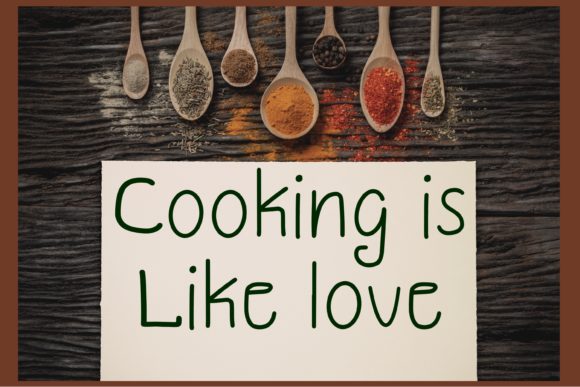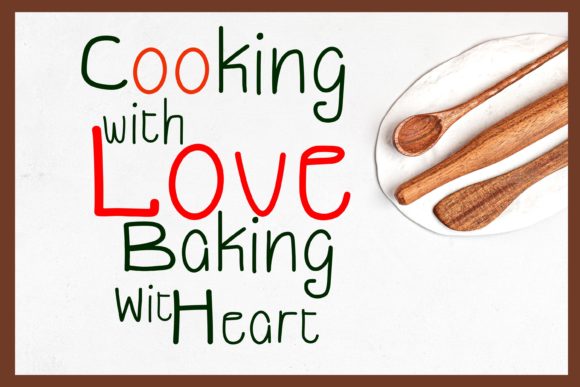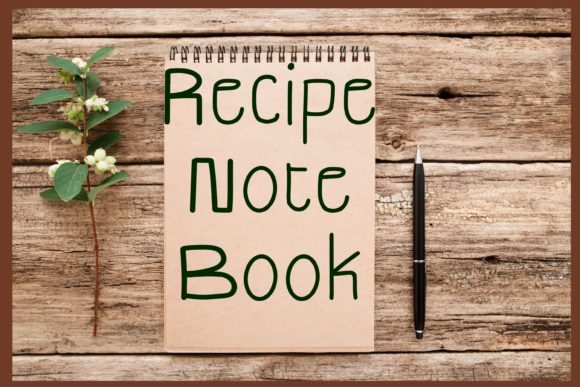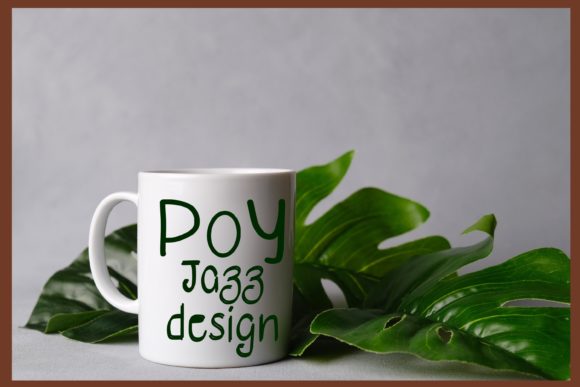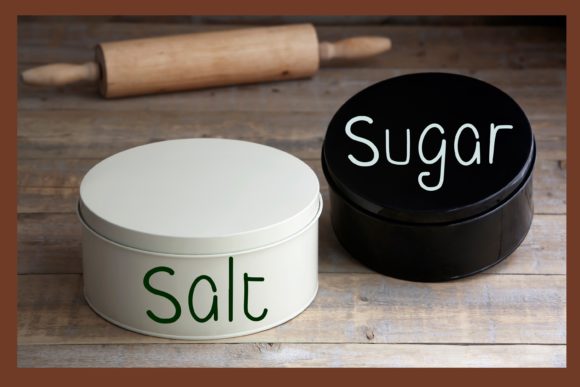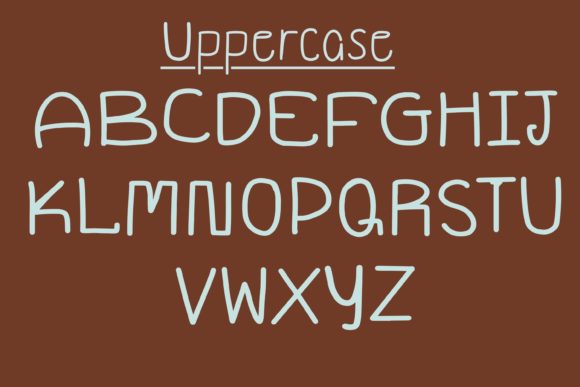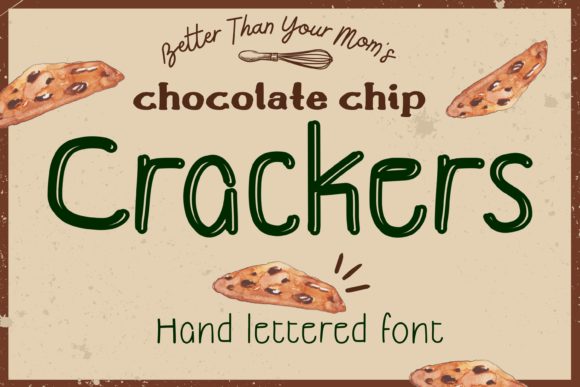
Cracker Font: Adding a Personal Touch to Your Designs
In the world of typography, fonts play a crucial role in conveying the tone and personality of a design. For designers and crafters looking to add a personal and realistic feel to their creations, the Cracker Font is an excellent choice. This simple, quirky, and informal handwritten font is perfect for a wide range of design projects, from digital media to print materials.
What is Cracker Font?
Cracker Font is a unique and charming typeface that boasts an authentic look and feel. Its handwritten nature gives it a personal touch that is hard to replicate with more formal fonts. The Cracker Font is characterized by its irregularities and quirks, which add to its charm and make it stand out from more traditional fonts.
Key Features of Cracker Font
- Simple and Quirky: The Cracker Font has a straightforward yet quirky design that makes it perfect for designs that require a personal touch.
- Informal and Handwritten: Its handwritten nature gives the font a relaxed and informal feel that is ideal for casual designs.
- Authentic Look and Feel: The font’s authentic look and feel make it perfect for designers looking to add a realistic touch to their designs.
- Versatile: The Cracker Font can be used for a wide range of design projects, from digital media to print materials.
Uses of Cracker Font
The Cracker Font is a versatile typeface that can be used for various design projects, including:
- Digital Media: Use the Cracker Font in social media graphics, blog posts, and website designs to add a personal touch.
- Print Materials: The font is perfect for print materials such as brochures, flyers, and posters.
- Crafting and DIY Projects: The Cracker Font is ideal for crafters and DIY enthusiasts looking to add a personal touch to their projects.
- Branding and Packaging: Use the font to create unique and eye-catching branding and packaging designs.
Benefits of Using Cracker Font
Using the Cracker Font in your designs offers several benefits, including:
- Unique and Eye-Catching: The font’s quirky and informal design makes it stand out from more traditional fonts.
- Personal Touch: The Cracker Font adds a personal and realistic feel to your designs.
- Easy to Read: Despite its informal nature, the font is easy to read and understand.
- Versatile: The font can be used for a wide range of design projects.
Tips for Using Cracker Font
To get the most out of the Cracker Font, follow these tips:
- Use it Sparingly: Use the font sparingly to avoid overwhelming your design.
- Pair it with Other Fonts: Pair the Cracker Font with other fonts to create a unique and visually appealing design.
- Keep it Simple: Keep your design simple and clean to allow the font to shine.
| Font Name | Cracker Font |
In conclusion, the Cracker Font is a unique and charming typeface that can add a personal and realistic feel to your designs. Its simple, quirky, and informal design makes it perfect for a wide range of design projects, from digital media to print materials. With its versatility, ease of use, and eye-catching design, the Cracker Font is an excellent choice for designers and crafters looking to add a personal touch to their creations.